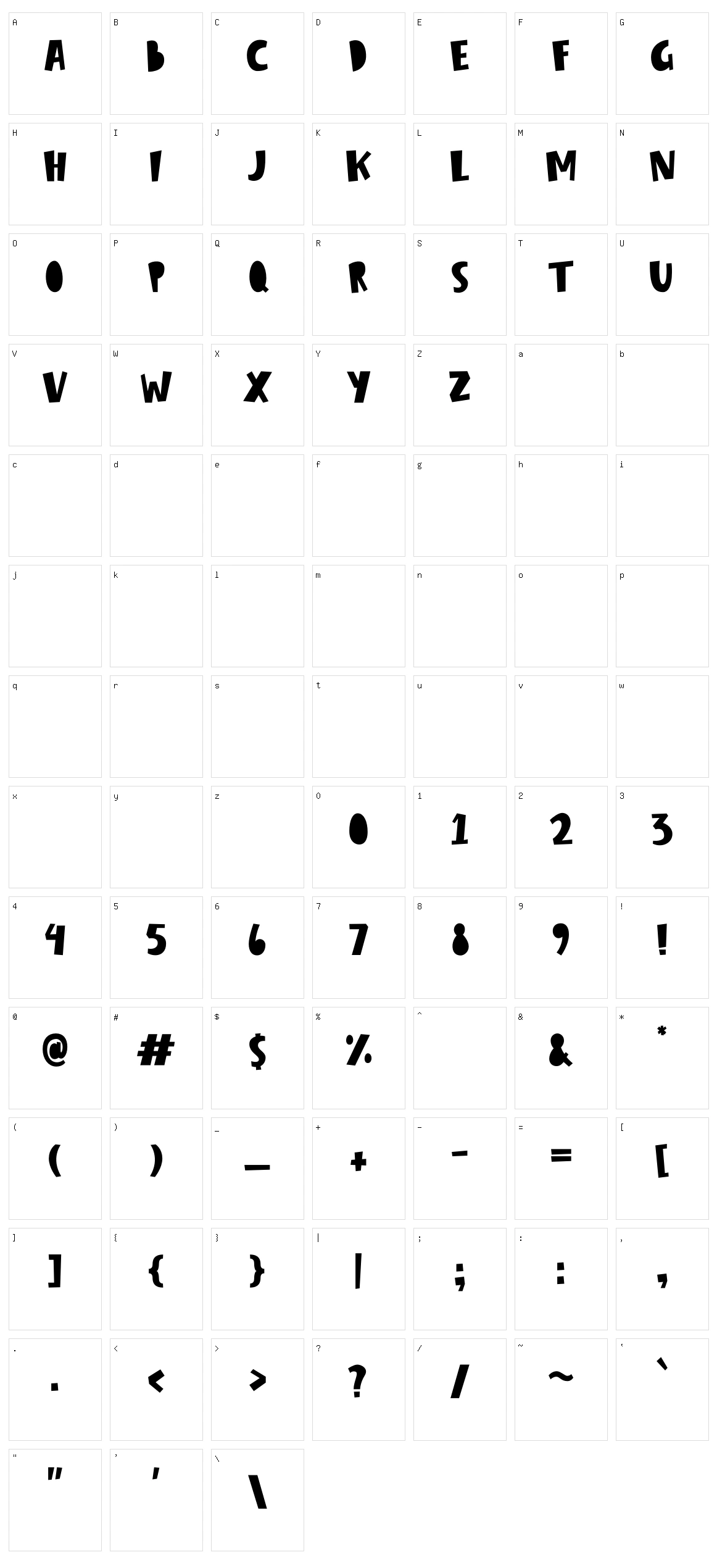
The free font Winter Spring is carefully designed by Sancrea Studio, showcasing a thoughtful balance of creativity and usability and falls under the Cartoon font style. When you download the ZIP file, it contains only 26.08 KB of font files, making it lightweight and quick to download. Please review the license details below to understand permitted usage and distribution rights. If license information is not available, we recommend using this font for personal projects only or contacting the author directly for commercial usage permissions.